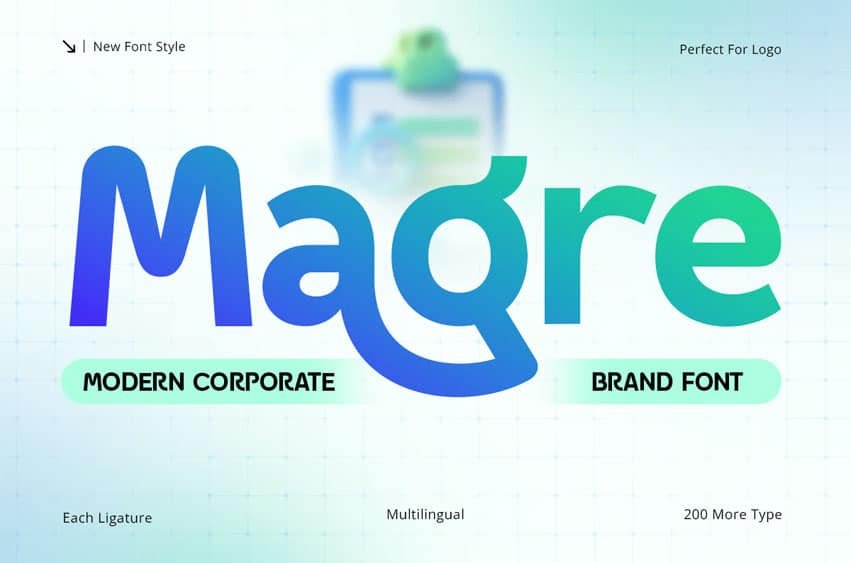
Magre Font Modern Corporate Brand Font is a professional corporate font designed for business branding, company identities, logo design, and modern visual communication. Inspired by contemporary corporate aesthetics and strategic brand development, Magre delivers a clean, trustworthy, and refined typographic style that helps businesses establish a strong and memorable brand presence.
Featuring balanced letterforms, modern proportions, and a professional structure, Magre creates a consistent visual identity across logos, branding systems, marketing materials, and digital platforms. Its versatile design combines readability with sophistication, making it an excellent choice for businesses, startups, agencies, and corporate organizations.
Whether you’re developing a corporate identity, launching a startup, creating a business logo, or building a modern brand system, Magre provides the professional typography needed to communicate credibility, confidence, and long-term brand value.
Magre Font Features
- Modern corporate letterforms optimized for branding and logo design
Magre is Perfect For
- Corporate branding and business identity systems
- Professional logo and logotype design
- Startup and enterprise branding
- Company profiles and business presentations
- Finance, consulting, and technology branding
- Website headers and digital brand assets
- Marketing materials and corporate communications
- Modern visual identity development
Whether you’re creating a corporate logo, developing a business identity, launching a startup brand, or producing professional marketing materials, Magre delivers the clarity, professionalism, and versatility of a modern corporate brand font built for successful and memorable branding.